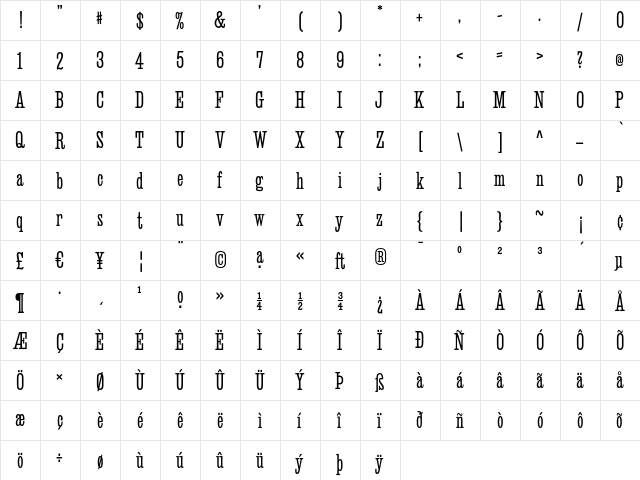
Deadwood Halfwide Light
Design Context for Deadwood Typeface
Deadwood taps into classic Western woodtype traditions — bold, characterful, and impossible to ignore. The delicate stroke weight brings airiness and refinement to layouts.
Perfect for barbecue restaurants, country music branding, vintage poster design, and rustic packaging.
Font Pairing: Combine Deadwood with a simple slab or neutral sans — period-accurate companions reinforce the vintage feel without competing for attention.
Pro Tip: Pair Deadwood with aged textures or distressed backgrounds to amplify its vintage personality.